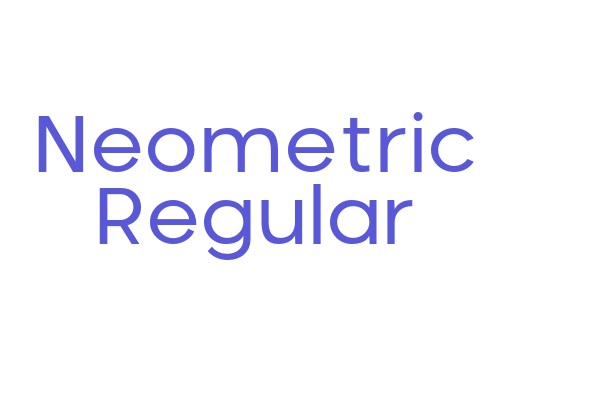
Neometric Regular is a sleek and modern sans serif font designed by Dan Jones. Part of the Neometric font family, this Regular style is perfect for creating clean and contemporary designs. Ideal for use in a variety of basic design projects, Neometric Regular is a versatile choice for those looking for a simple yet stylish typeface.
Font Name: Neometric Regular
Designer: Dan Jones
Font Family: Neometric